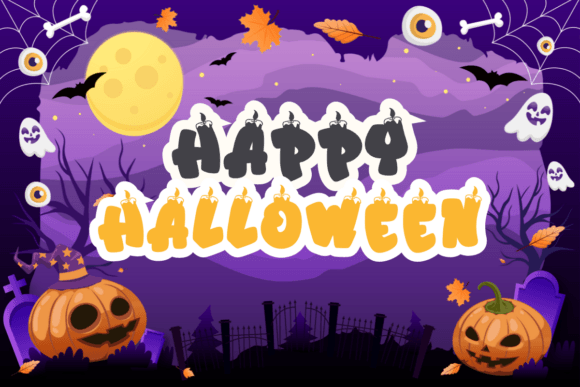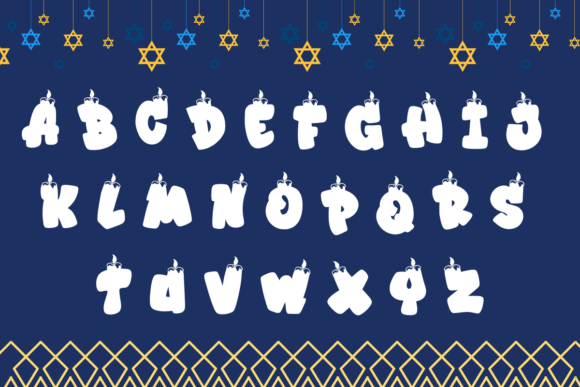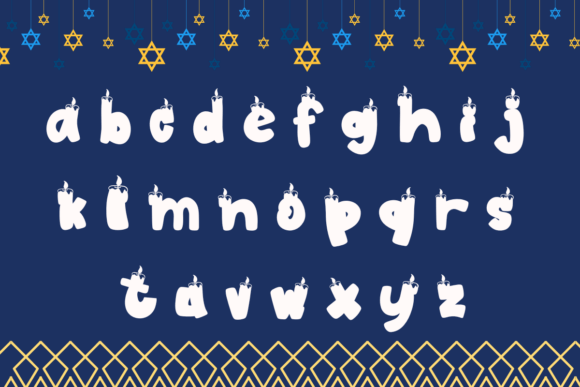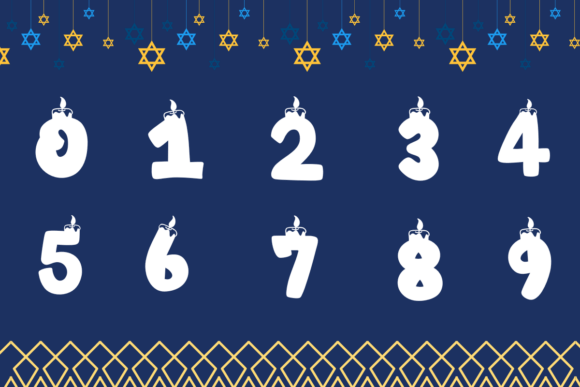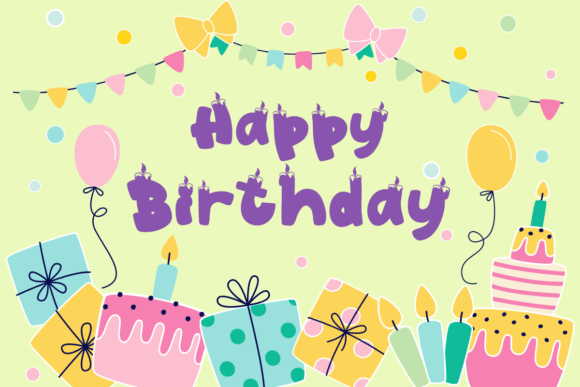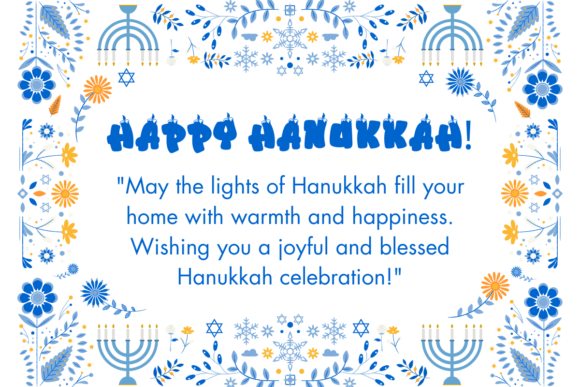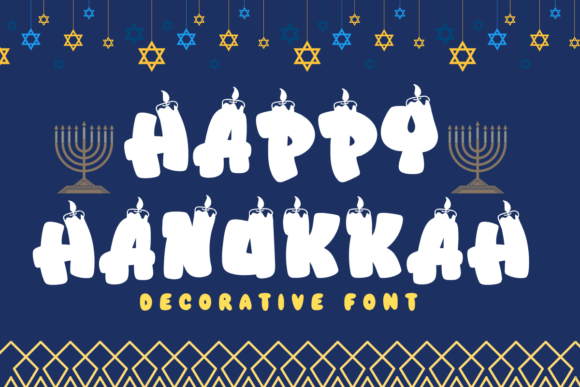
Happy Hanukkah Font: Add a Festive Touch to Your Designs
Are you looking for a font that captures the spirit of the Hanukkah season? Look no further than the Happy Hanukkah font! This festive decorative font is perfect for adding a touch of joy and celebration to your designs. In this article, we’ll explore the features and uses of the Happy Hanukkah font, and show you how to make the most of this wonderful resource.
What is Happy Hanukkah Font?
Happy Hanukkah font is a decorative font designed specifically for the Hanukkah season. It’s a unique and festive typeface that’s perfect for creating holiday-themed designs. The font is highly legible and can be used for a variety of purposes, from writing notes and diaries to creating greeting cards and social media posts.
Features of Happy Hanukkah Font
The Happy Hanukkah font has several features that make it a great choice for designers and crafters:
- Festive design: The font has a playful and festive design that’s perfect for the Hanukkah season.
- High legibility: The font is highly legible, making it easy to read and use in a variety of designs.
- Versatile: The font can be used for a wide range of designs, from greeting cards and social media posts to banners and stationery.
Uses of Happy Hanukkah Font
The Happy Hanukkah font is incredibly versatile and can be used for a wide range of designs, including:
- Notes and diaries: Add a festive touch to your notes and diaries with the Happy Hanukkah font.
- Greeting cards: Create beautiful and unique greeting cards for friends and family.
- Banners: Use the font to create eye-catching banners for parties and events.
- Social media posts: Add a festive touch to your social media posts and stories.
- Mugs and cards: Create personalized mugs and cards for friends and family.
- Shirts and stationery: Use the font to create custom shirts and stationery.
Tips for Using Happy Hanukkah Font
Here are some tips for getting the most out of the Happy Hanukkah font:
- Experiment with colors: Try out different colors and color combinations to add depth and interest to your designs.
- Mix and match fonts: Combine the Happy Hanukkah font with other fonts to create unique and interesting designs.
- Use graphics and images: Add graphics and images to your designs to make them more visually appealing.
- Keep it simple: Don’t be afraid to keep your designs simple and elegant – sometimes less is more!
The Happy Hanukkah font is a wonderful resource for designers and crafters looking to add a festive touch to their designs. With its playful and festive design, high legibility, and versatility, this font is perfect for a wide range of projects. Whether you’re creating greeting cards, social media posts, or banners, the Happy Hanukkah font is sure to bring a smile to people’s faces. So why not give it a try and see what amazing designs you can create?